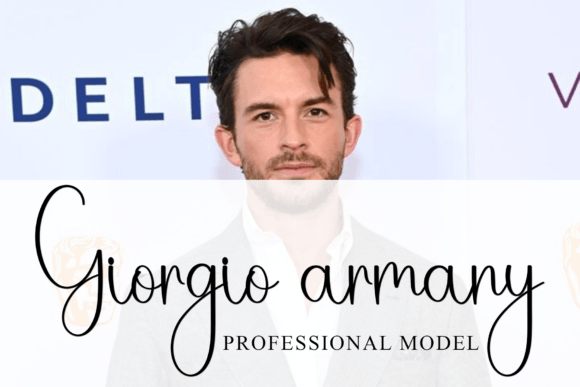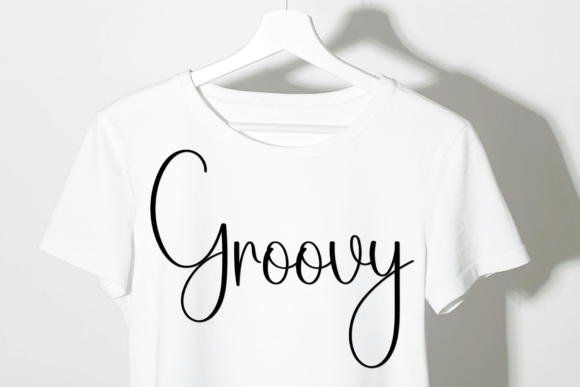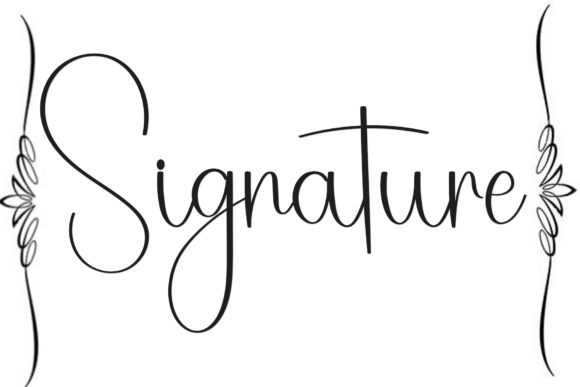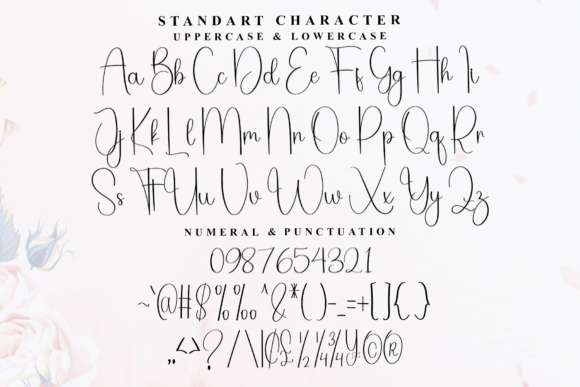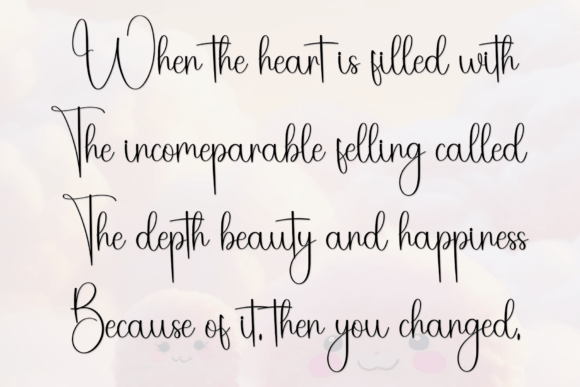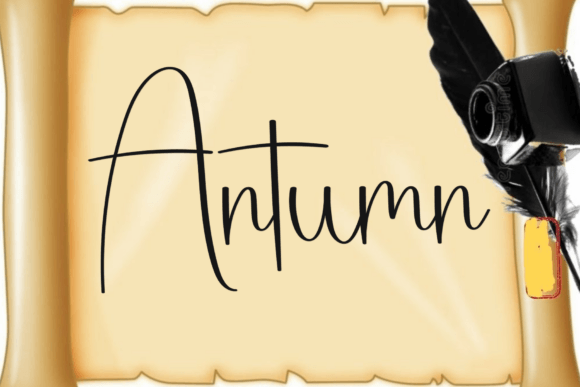
Introducing Birthday Font: The Elegant Script Font for Your Designs
Are you looking for a beautiful and refreshing font to add a touch of elegance to your designs? Look no further than Birthday Font, a lovely and delicate script font that exudes sophistication and class. In this article, we’ll explore the features and benefits of Birthday Font, and how it can elevate your designs to the next level.
What is Birthday Font?
Birthday Font is a carefully crafted script font, designed to bring a sense of luxury and refinement to your designs. With its flowing lines and delicate curves, this font is perfect for creating beautiful and eye-catching text that stands out from the crowd. Whether you’re a designer, crafter, or DIY enthusiast, Birthday Font is an excellent choice for anyone looking to add a touch of elegance to their work.
- Elegant and Refined: Birthday Font boasts a sophisticated and refined design, making it perfect for high-end designs, luxury brands, and special occasions.
- Delicate Curves: The font features delicate curves and flowing lines, giving it a beautiful and feminine touch.
- Versatile: Birthday Font is suitable for a wide range of design applications, from digital projects to print materials.
- Easy to Read: Despite its elegant design, Birthday Font remains easy to read, making it perfect for body text and headings.
Benefits of Using Birthday Font
So, why choose Birthday Font for your designs? Here are just a few benefits of using this beautiful script font:
- Adds Elegance: Birthday Font instantly adds a touch of elegance and sophistication to your designs, making them stand out from the crowd.
- Creates Emotional Connection: The font’s delicate curves and flowing lines create an emotional connection with your audience, making your designs more relatable and engaging.
- Versatile: Birthday Font can be used in a wide range of design applications, from wedding invitations and party decorations to branding and advertising materials.
- Unique: With its unique and refined design, Birthday Font helps you create distinctive and memorable designs that set you apart from the competition.
How to Use Birthday Font in Your Designs
Using Birthday Font in your designs is easy and straightforward. Here are a few tips to get you started:
- Pair with Bold Fonts: Pair Birthday Font with bold fonts for a striking contrast that adds visual interest to your designs.
- Use for Headings: Use Birthday Font for headings and titles to add a touch of elegance and sophistication.
- Add Decorative Elements: Add decorative elements, such as flowers or leaves, to enhance the font’s delicate curves and flowing lines.
- Experiment with Colors: Experiment with different colors and textures to find the perfect combination that complements your design.